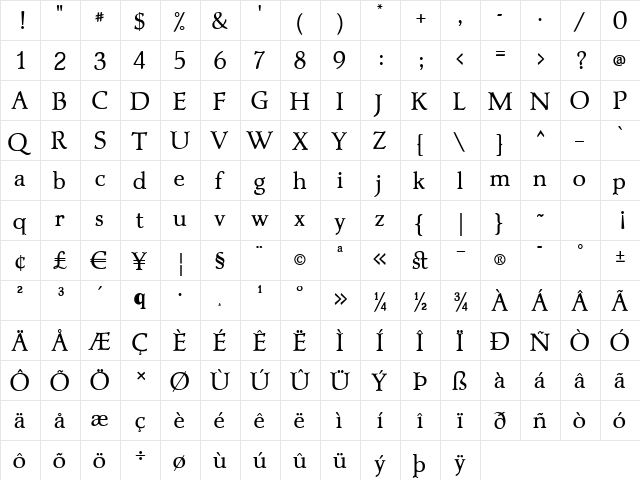
Mercian Regular
Design Context for Mercian Typeface
Mercian takes a measured approach to typography — its balanced proportions and neutral character make it a reliable workhorse for both digital and print work.